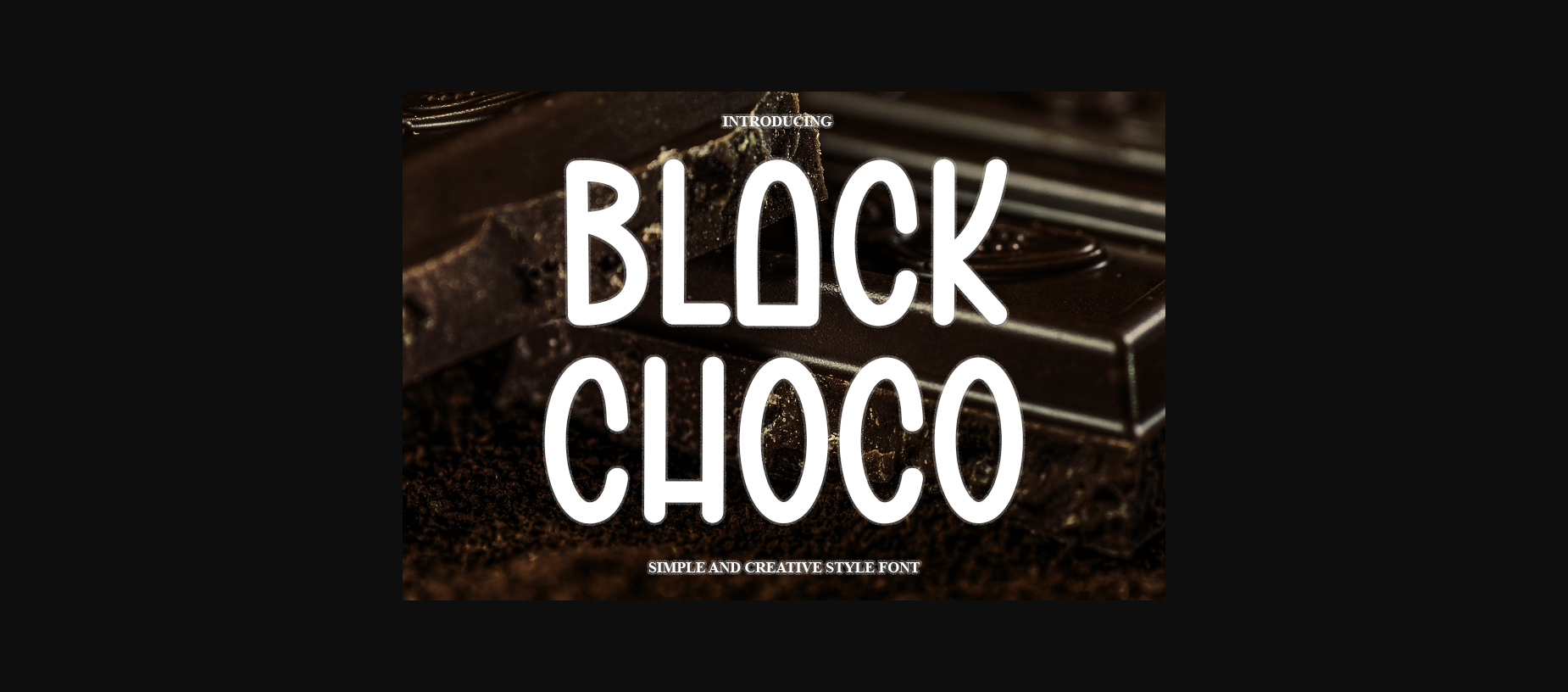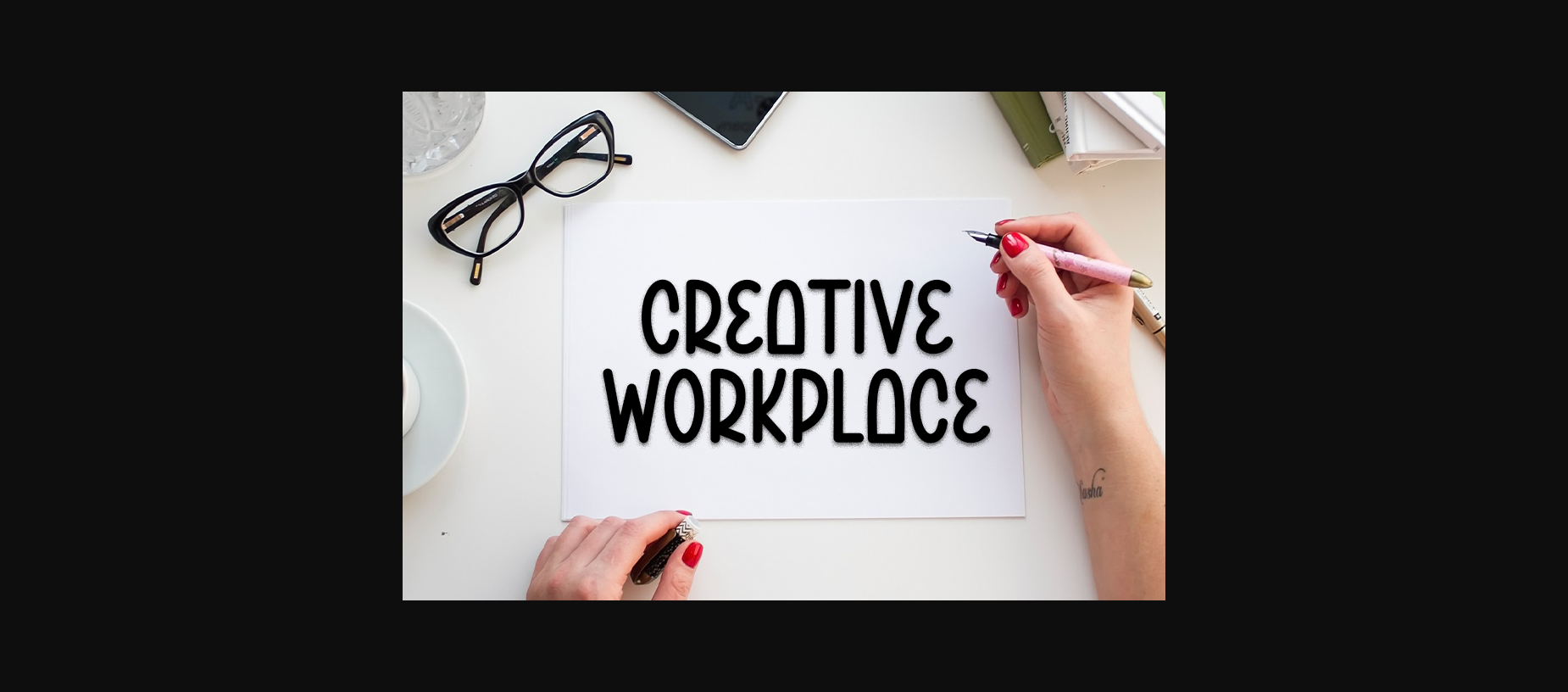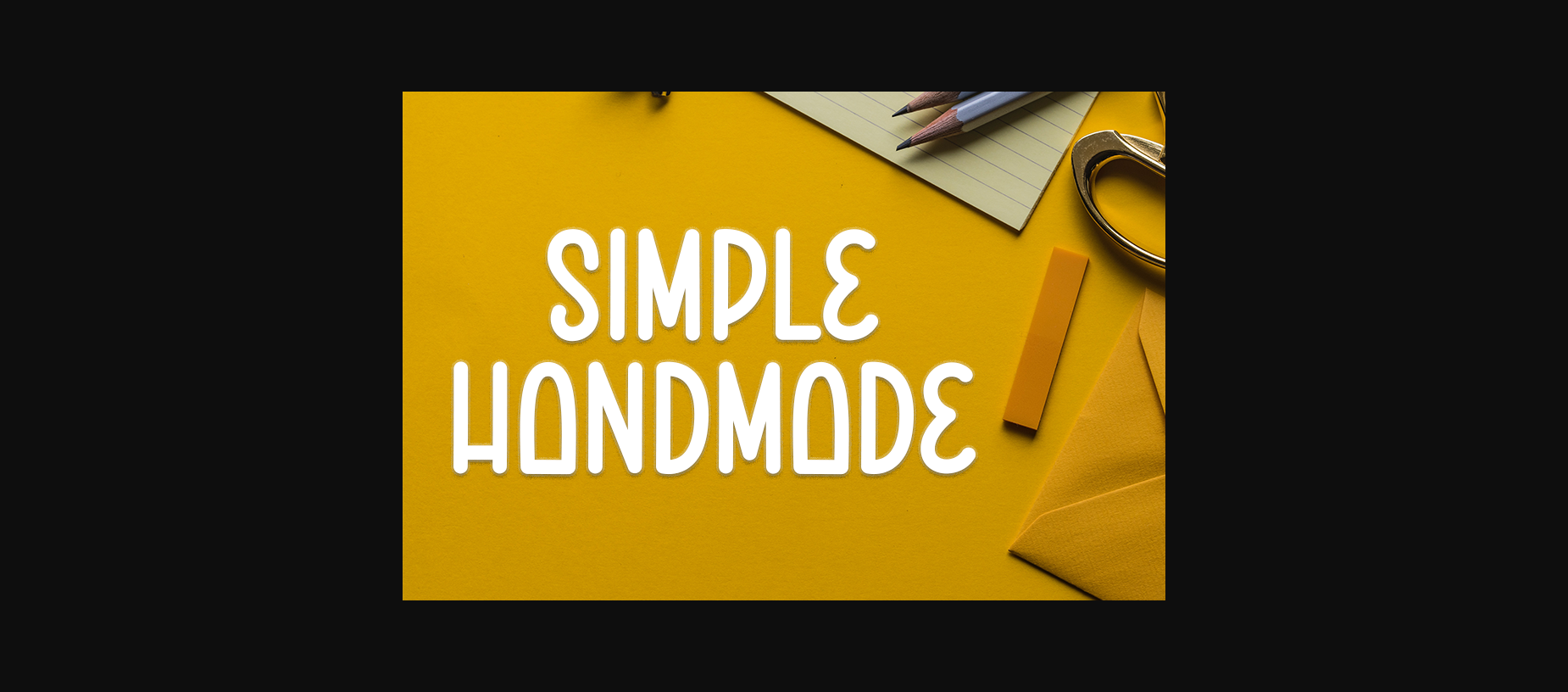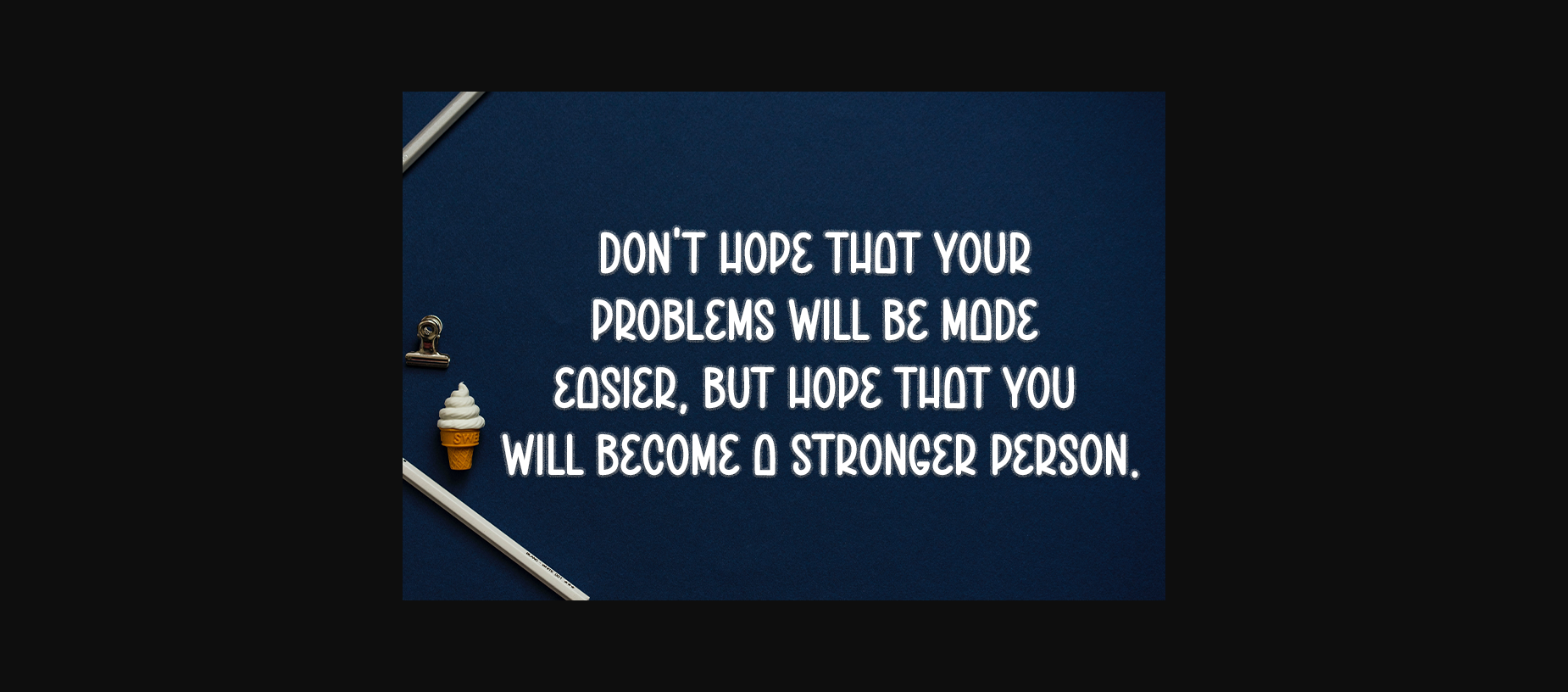
About Black Choco Font
Black Choco is a cool and modern sans-serif font. Whether you’re using it for crafts, digital design, presentations, or making greeting cards, this font has the potential to become your favorite go-to font, no matter the occasion.